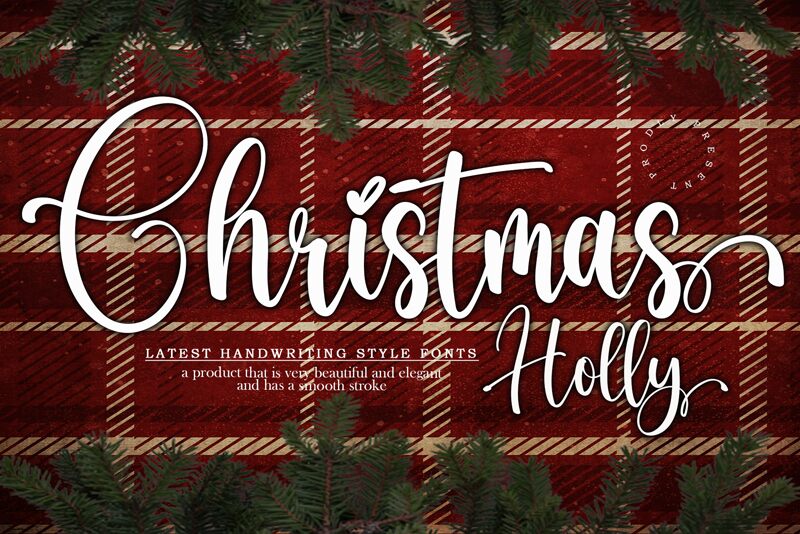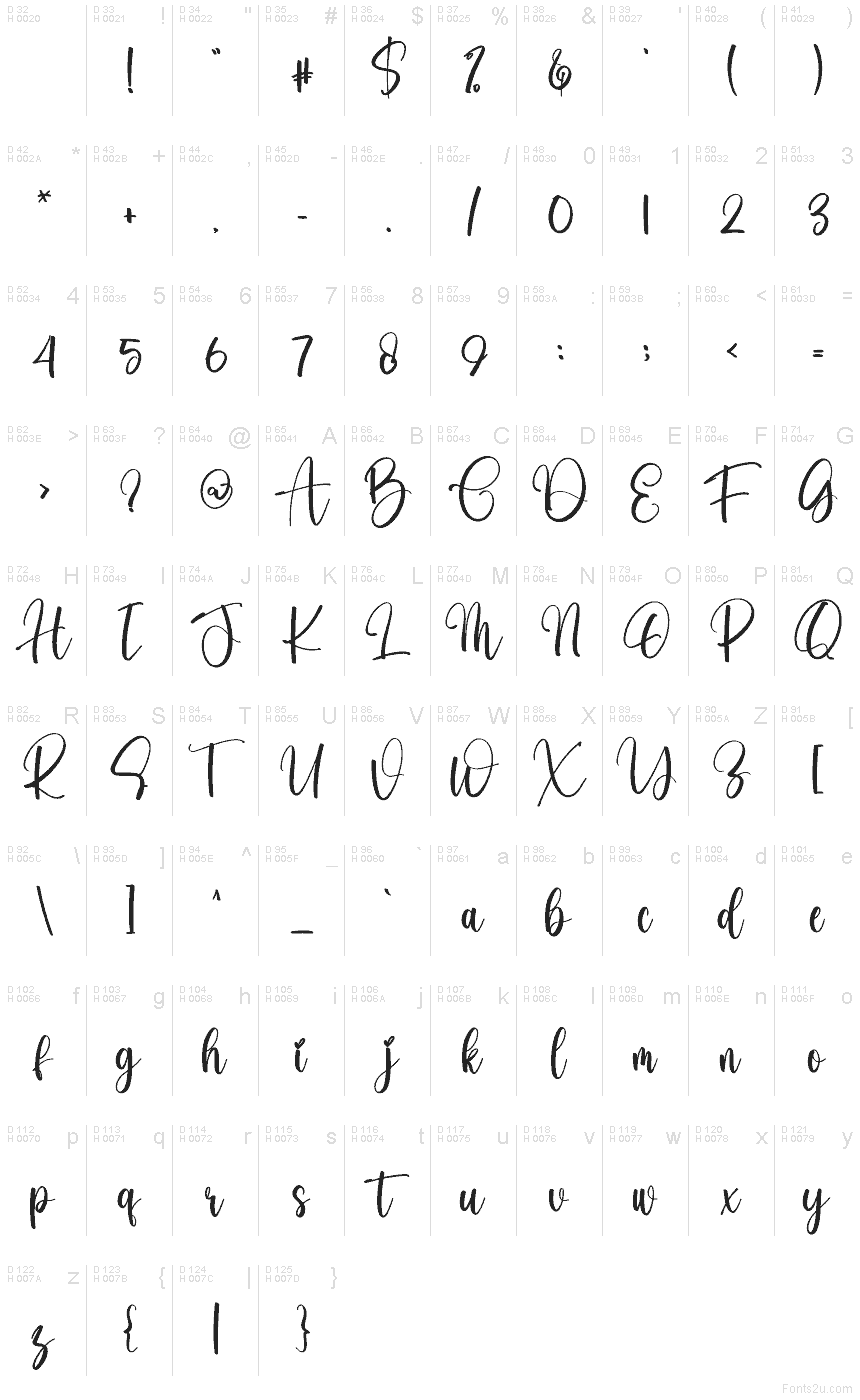
Christmas Holly
Christmas Holly font by Creatype Designer is a free handwritten script typeface with a warm, festive flourish. Loose, looping strokes feel like they were brushed onto a gift tag, while the playful heart-shaped dot and sweeping connections add a cozy, crafty charm. The letters are slightly irregular in the best way, giving Christmas Holly a genuinely hand-penned look that’s lively without becoming messy or hard to read.
Using Christmas Holly, you can bring a storybook sense of holiday magic to greeting cards, gift labels, seasonal logos, party invitations, social media graphics, and printable decor. This free font shines at larger sizes where the inky curves and bouncy rhythm can really breathe; pair it with a clean sans serif for supporting text so the script remains the star.